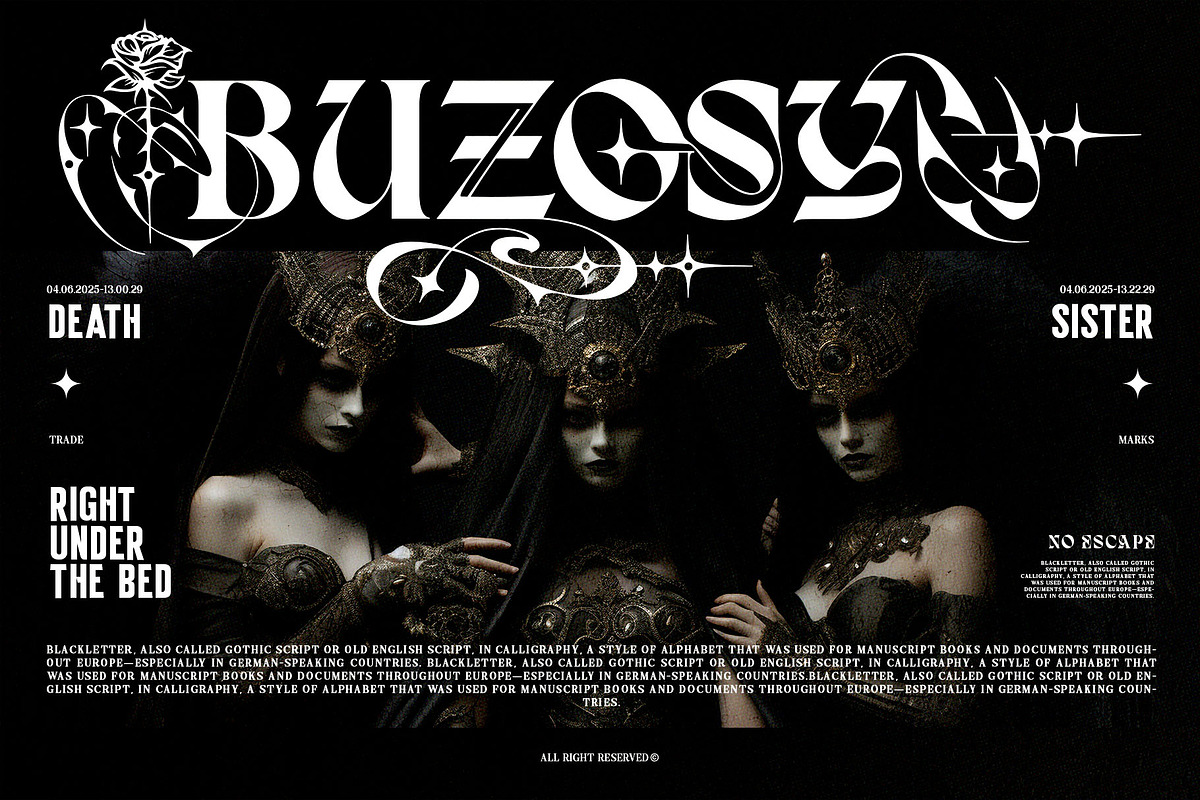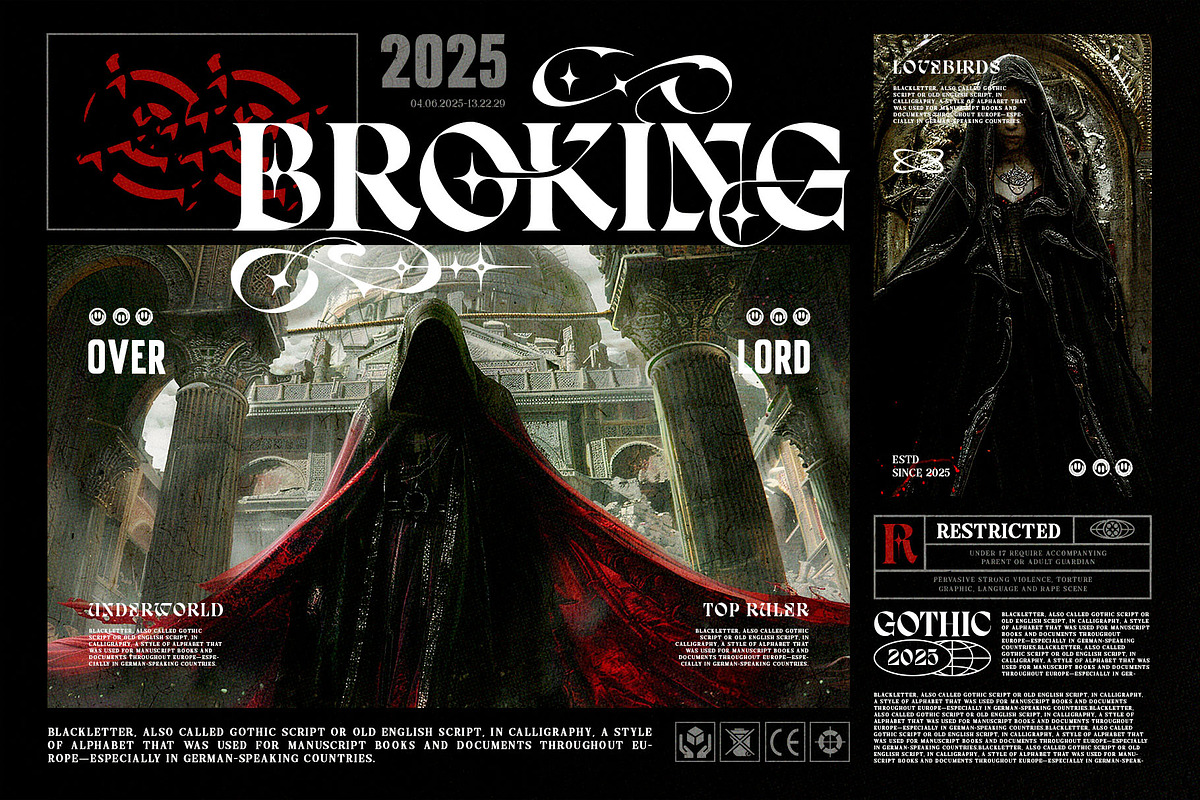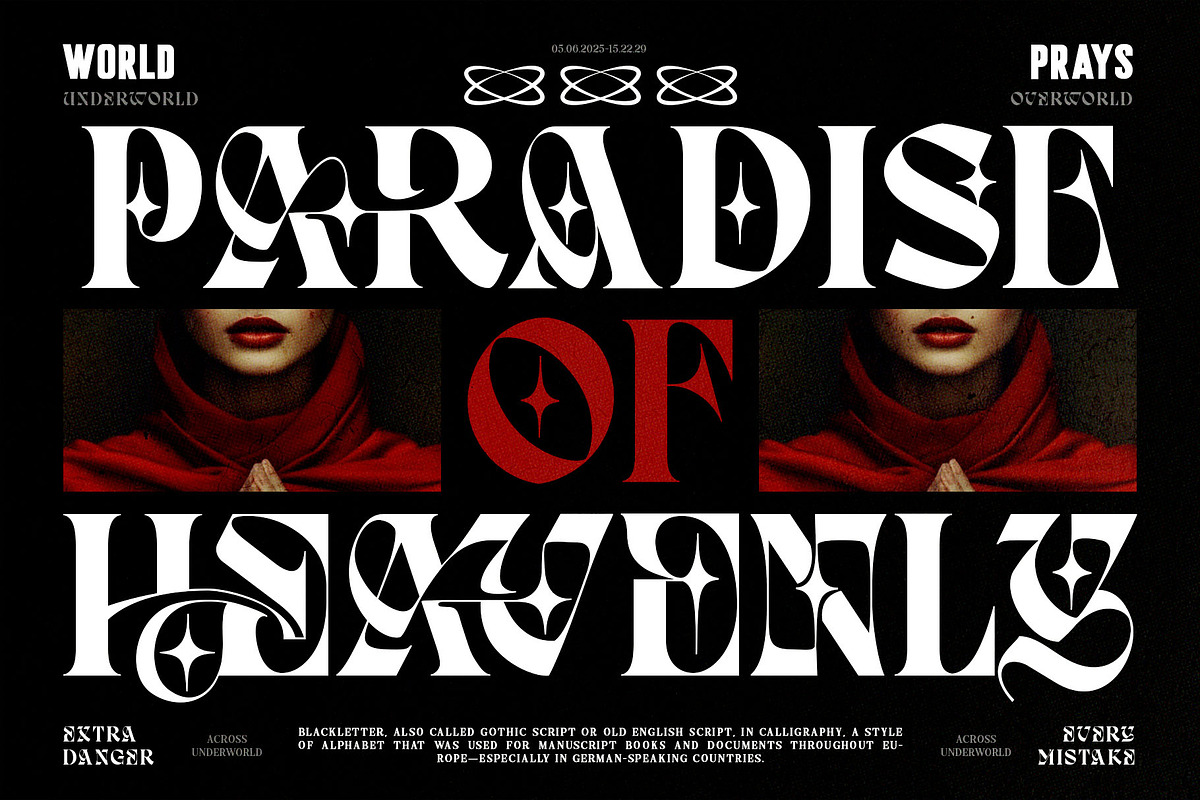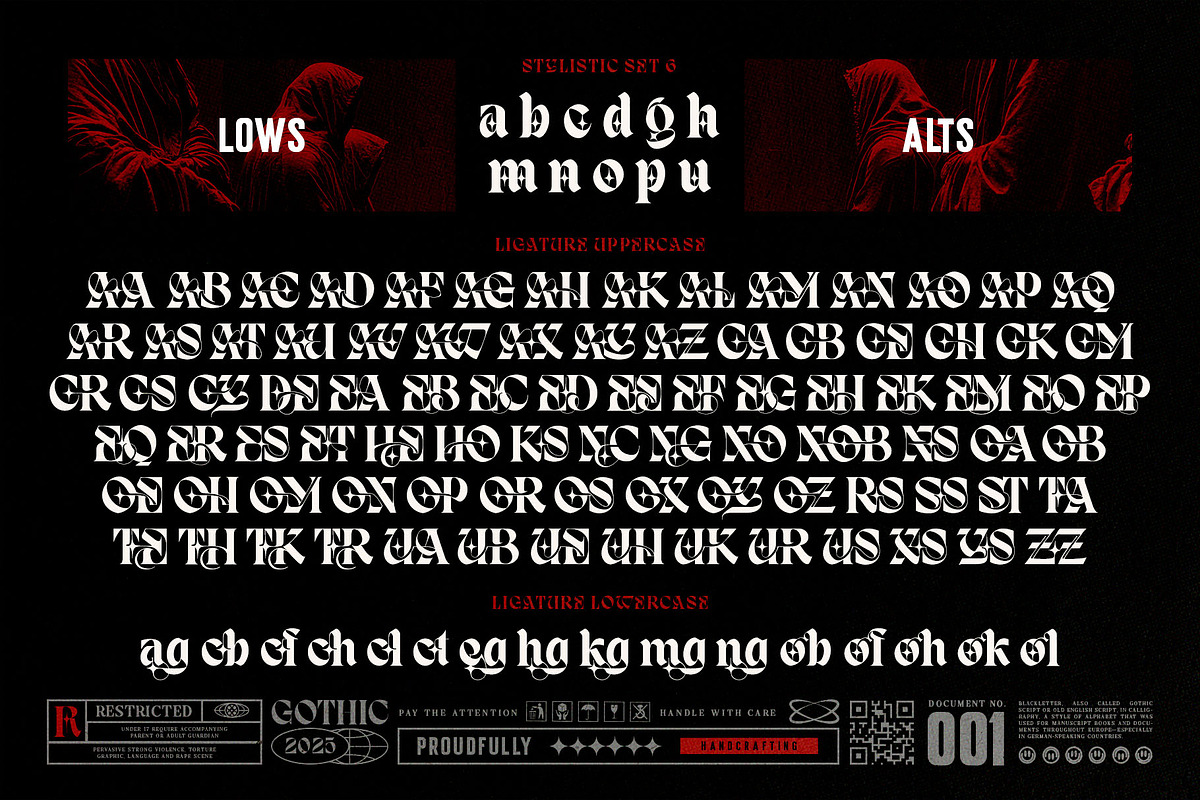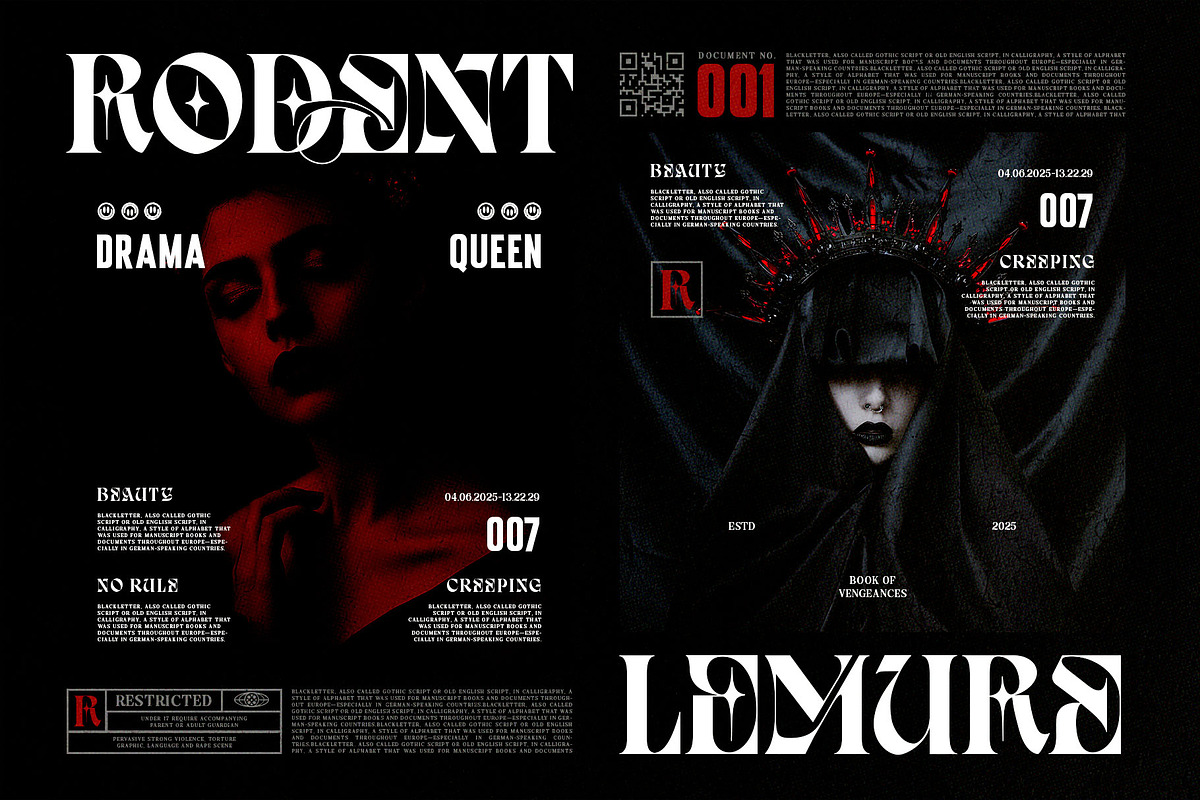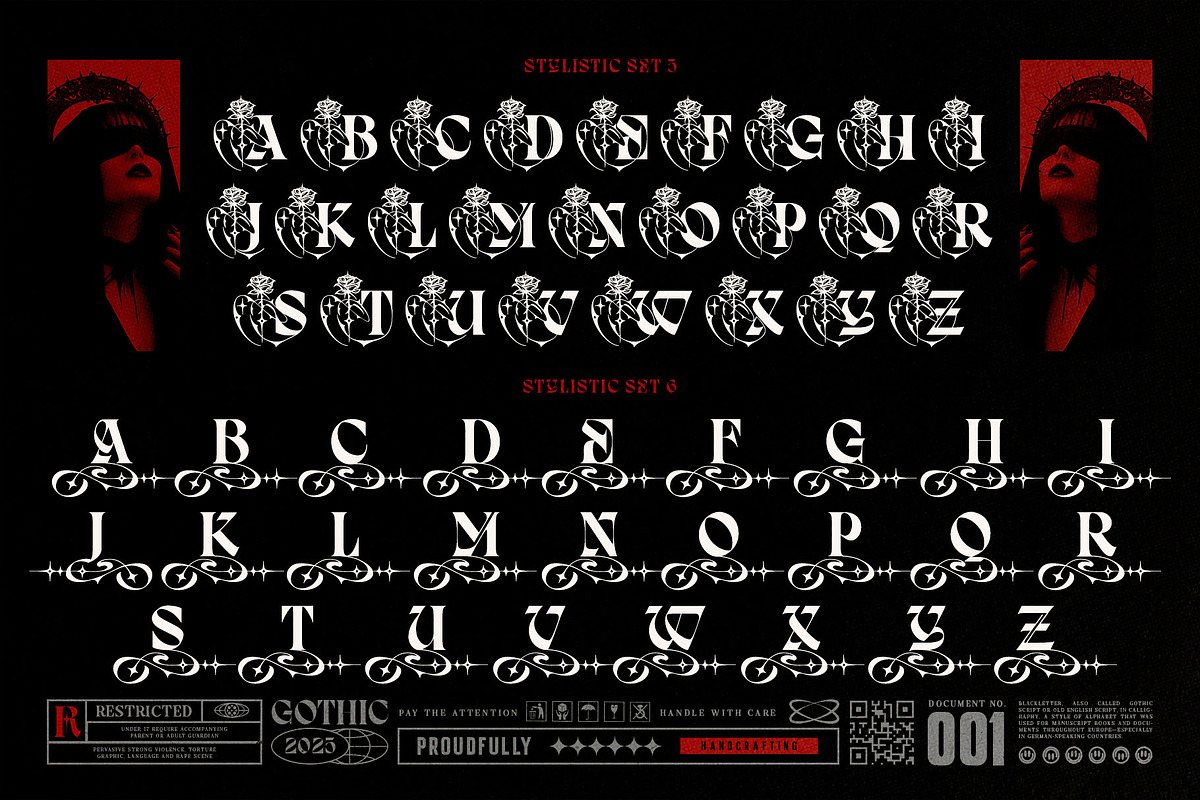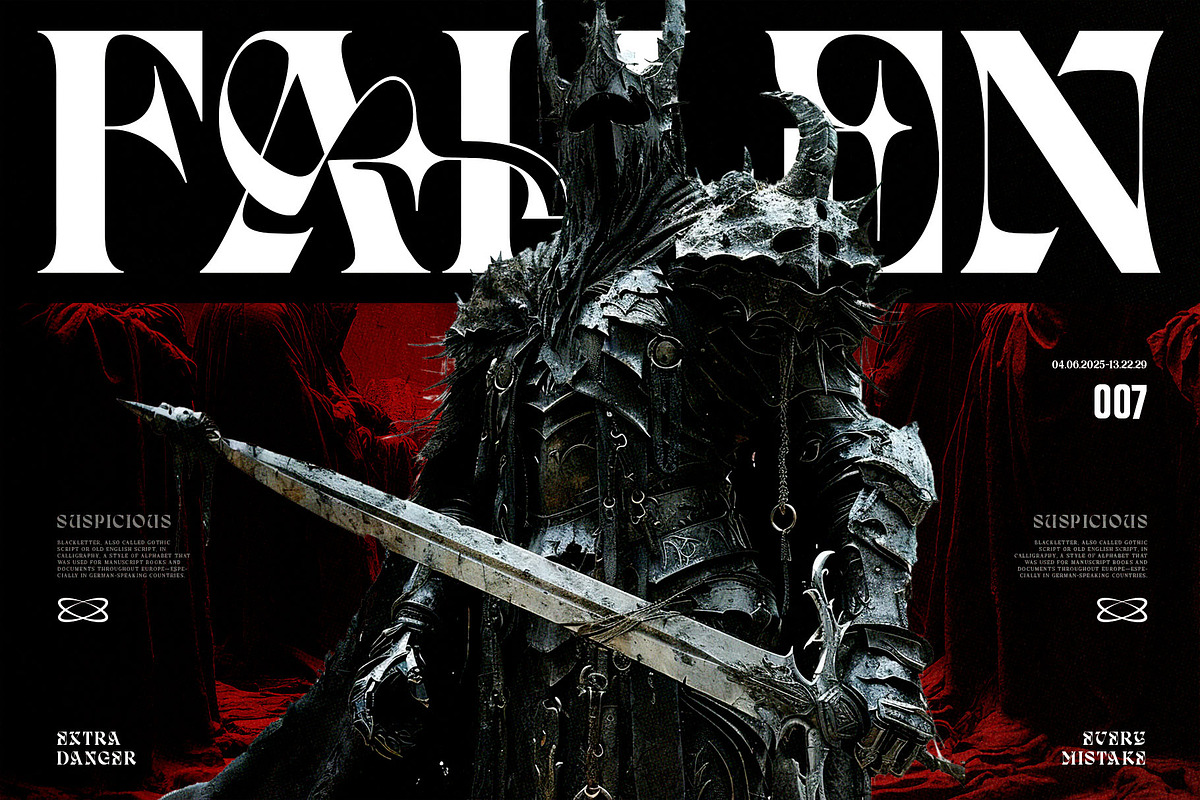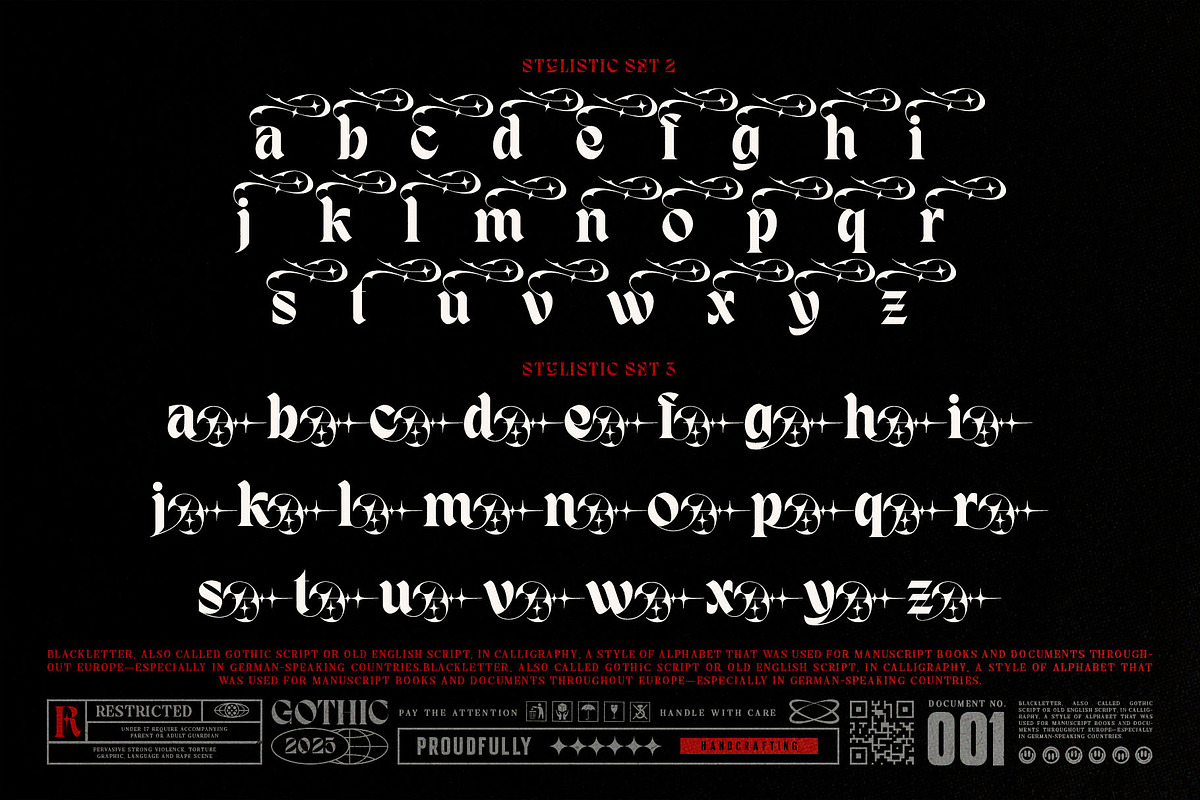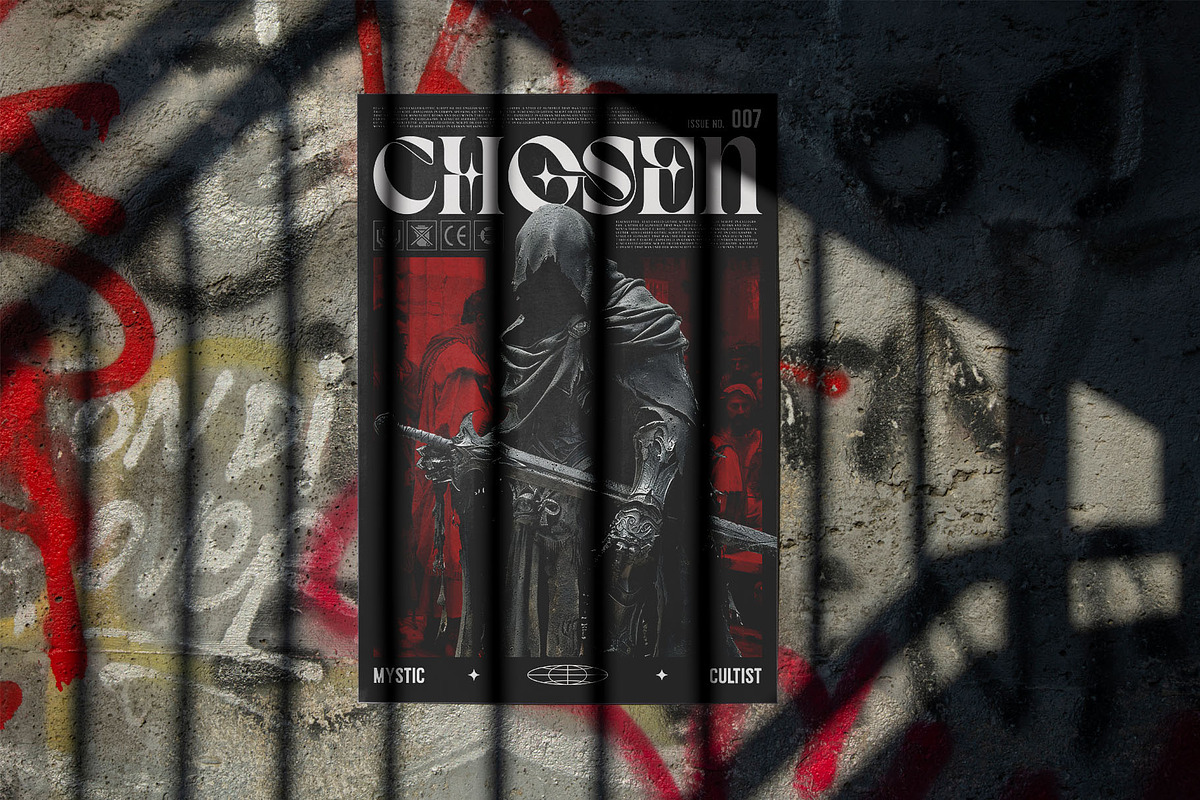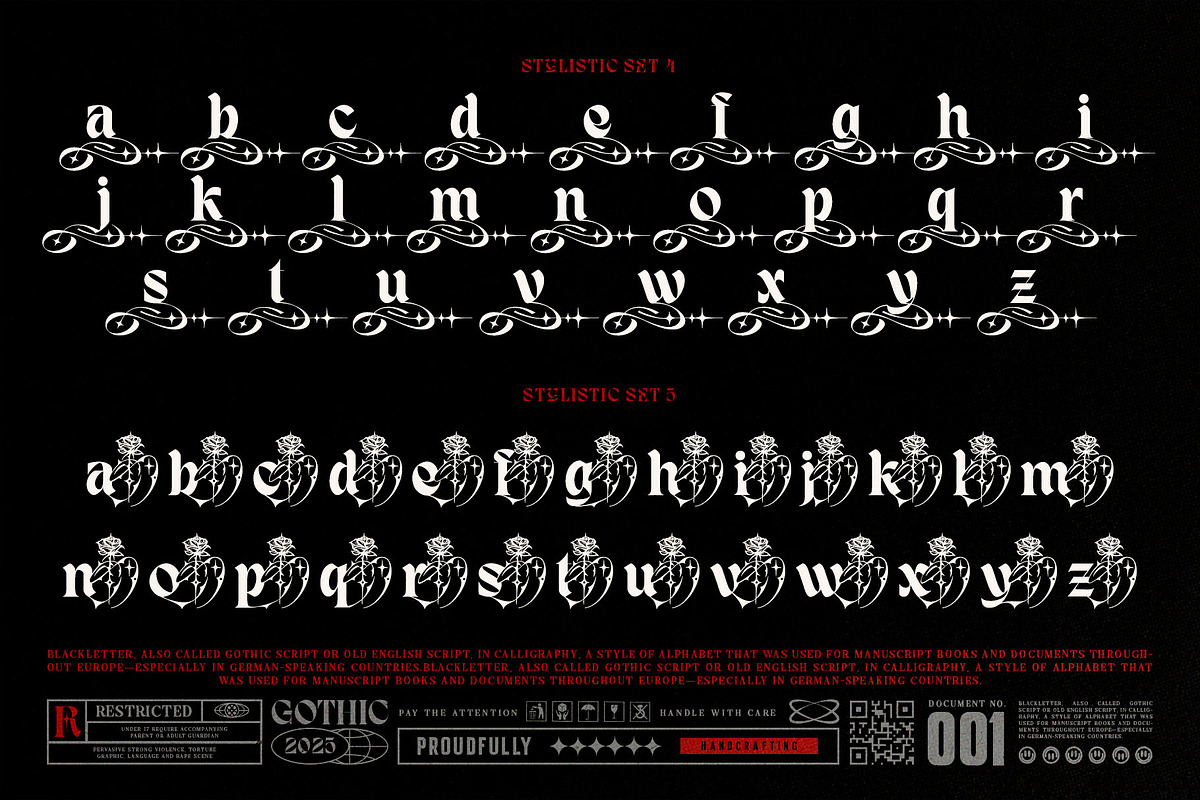
Dark Reborn Typeface
A Bold Fusion of Gothic Heritage and Modern Elegance
Unleash a new era of typographic artistry with Dark Reborn—a typeface where tradition meets transformation. Designed by Alit Design Studio and forged in the aesthetic crucible of Gothic calligraphy, Dark Reborn is a bold serif-Blackletter hybrid that dares to defy convention.
This typeface is more than just a font—it is a visual language of power, pride, and dark beauty.
🖋 Typeface Concept
Dark Reborn draws its soul from historic Blackletter scripts, once used in medieval manuscripts and royal decrees, and reinvents it with bold modern serifs, sharp geometry, and ornamental detail. The result is a striking modern Gothic typeface that blends the rigid elegance of Old English with progressive design innovation.
The typeface’s structure is bold and commanding—ideal for attention-grabbing headlines, branding, and artistic compositions. Tribal-style swashes and rose-inspired alternate glyphs lend a symbolic, almost mythic feel to the font, making it especially suitable for luxury, occult, fashion, music, tattoo, or high-concept creative work.
🌹 Signature Features
🖤 Blackletter-Serif Fusion Marrying the structured verticality of traditional Blackletter with the clean weight and form of modern serif fonts. Timeless and innovative.
⚔️ Bold, Modern Shape Strong, thick lines with precise, calculated angles—balanced for high readability while retaining artistic flair.
🌺 Floral & Tribal Alternates Includes decorative rose flourishes, tribal accents, and symbolic ligatures that elevate your typography to art. Ideal for creating custom logotypes and emblems.
✒️ Extensive Glyph Set (900+ Glyphs) Includes uppercase, lowercase, numerals, punctuation, multilingual support, ligatures, alternates, stylistic sets, and decorative elements.
🎭 Dark Elegance Aesthetic Designed for gothic themes, modern mysticism, vintage punk, or any visual style that craves a dramatic, high-impact typeface.
🧩 Perfect For
- Band logos & music album covers (especially metal, gothic, punk, or darkwave)
- High-fashion branding
- Occult, dark fantasy, and horror-themed projects
- Editorial headlines and typographic posters
- Tattoo designs and apparel
- Packaging design for luxury, fragrance, or artisan products
- Alternates & stylistic sets
- Decorative rose and tribal ornaments
🔮 Reborn in Darkness
Dark Reborn is not just a typeface—it’s a visual resurrection of forgotten script styles, reawakened through contemporary design. Whether you're conjuring a royal manifesto, a rebellious brand identity, or a mystic narrative, this font will give your words the throne they deserve.